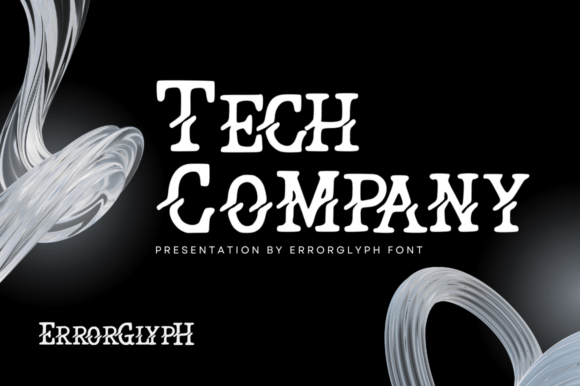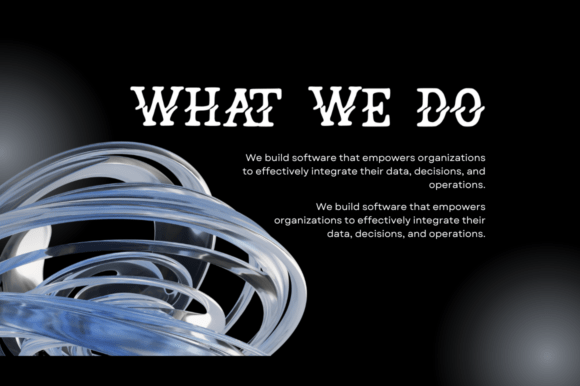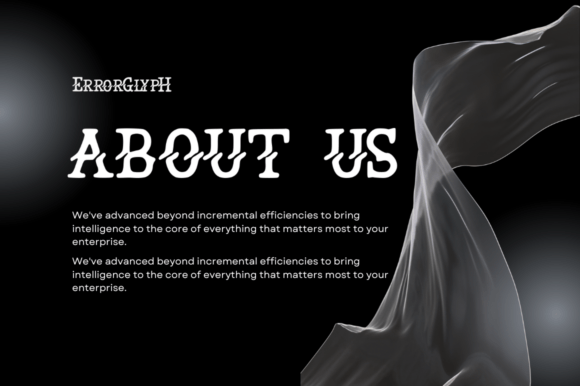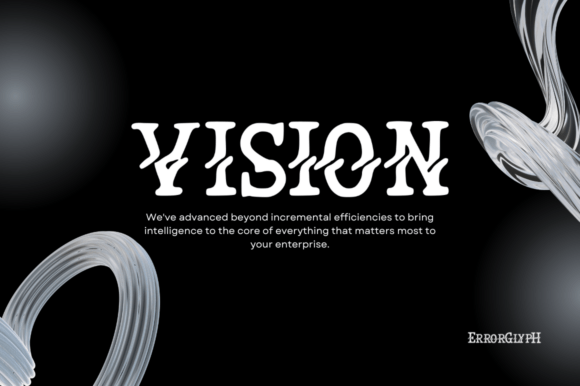
Errorglyph Font
About the Errorglyph Font
Let us introduce you to Errorglyph Font, where timeless design meets modern craftsmanship. Errorglyph is a distorted vintage serif font with bold all-caps lettering and chaotic wave-like strokes. Inspired by aged typewriters and decaying print presses, this typeface is perfect for band posters, rebellious branding, zines, horror titles, and anything that needs a gritty, worn-out look with attitude.
Errorglyph excels in large-scale applications like headlines, posters, and logotypes where its bold, distorted forms command attention. It’s ideal for projects needing a rebellious or gritty aesthetic—think punk rock bands, horror films, or edgy streetwear brands. Avoid using it for body text or UI elements; its highly stylized forms hinder readability in smaller sizes or continuous text.
Pairing Errorglyph effectively requires a contrasting typeface to balance its chaotic energy. A clean sans-serif like Futura or a geometric sans-serif like Bebas Neue would provide sharp visual counterpoint. For a more vintage feel, consider a simpler serif like Garamond or a slightly distressed script font for added texture.
Errorglyph’s core personality is rebellious and bold, conveying a sense of raw energy and vintage grit. Its distorted forms inject a sense of controlled chaos, making it perfect for projects that need a strong, unapologetic visual identity.
Errorglyph Font Usage Examples
Errorglyph Font Example